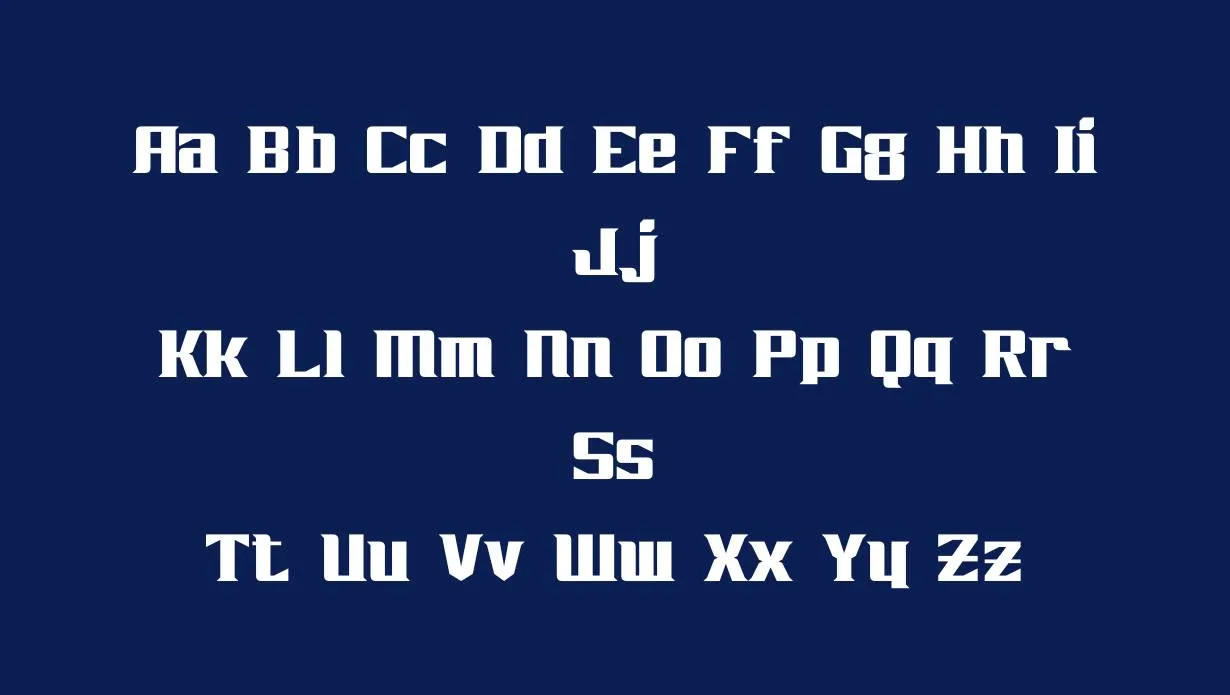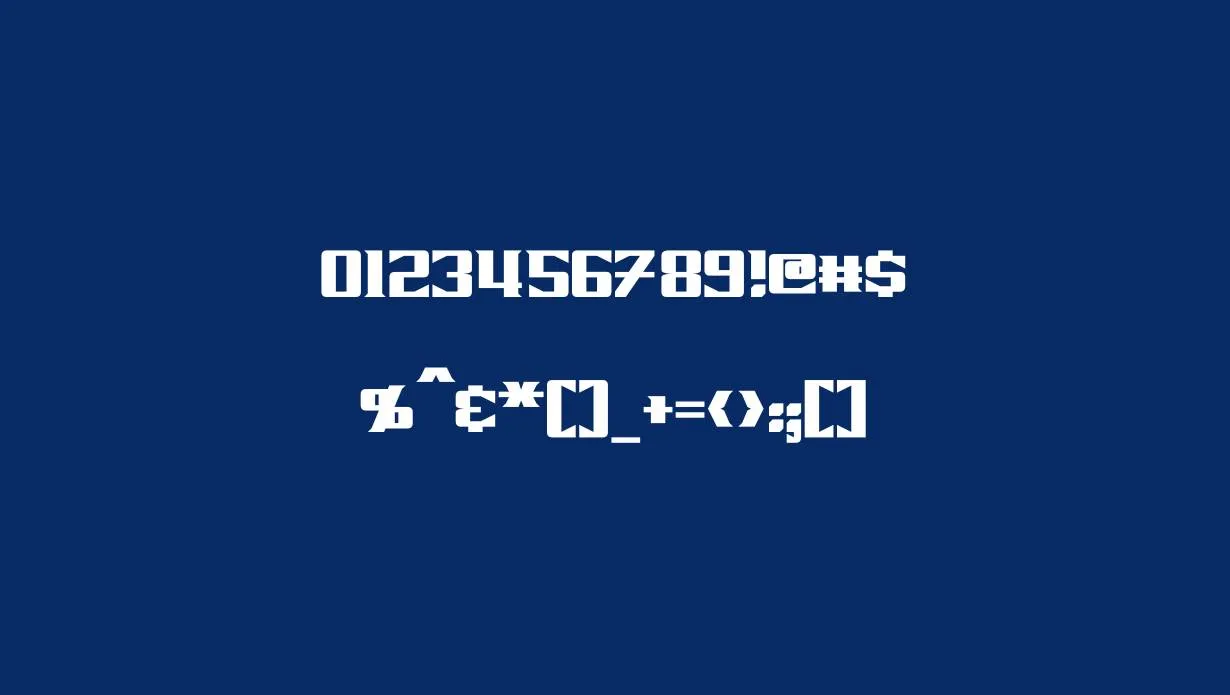
Zarathos Font is a very popular font that is loosely used in the Ghost Rider series and various other series. This stunning typeface was designed by well-reputed typographers named Neale and Shayna Davidson and it was published by Pixel Sagas.
There are more than 144 glyphs in this typeface which includes uppercase letters, punctuations, numerals, and lowercase letters.
- Zarathos Regular
- Zarathos Bold
- Zarathos Italic
- Zarathos Bold Italic
View of Zarathos Font
Zarathos Font Info
| Name | Zarathos Font |
| Designer | Pixel Sagas |
| Style | Gothic |